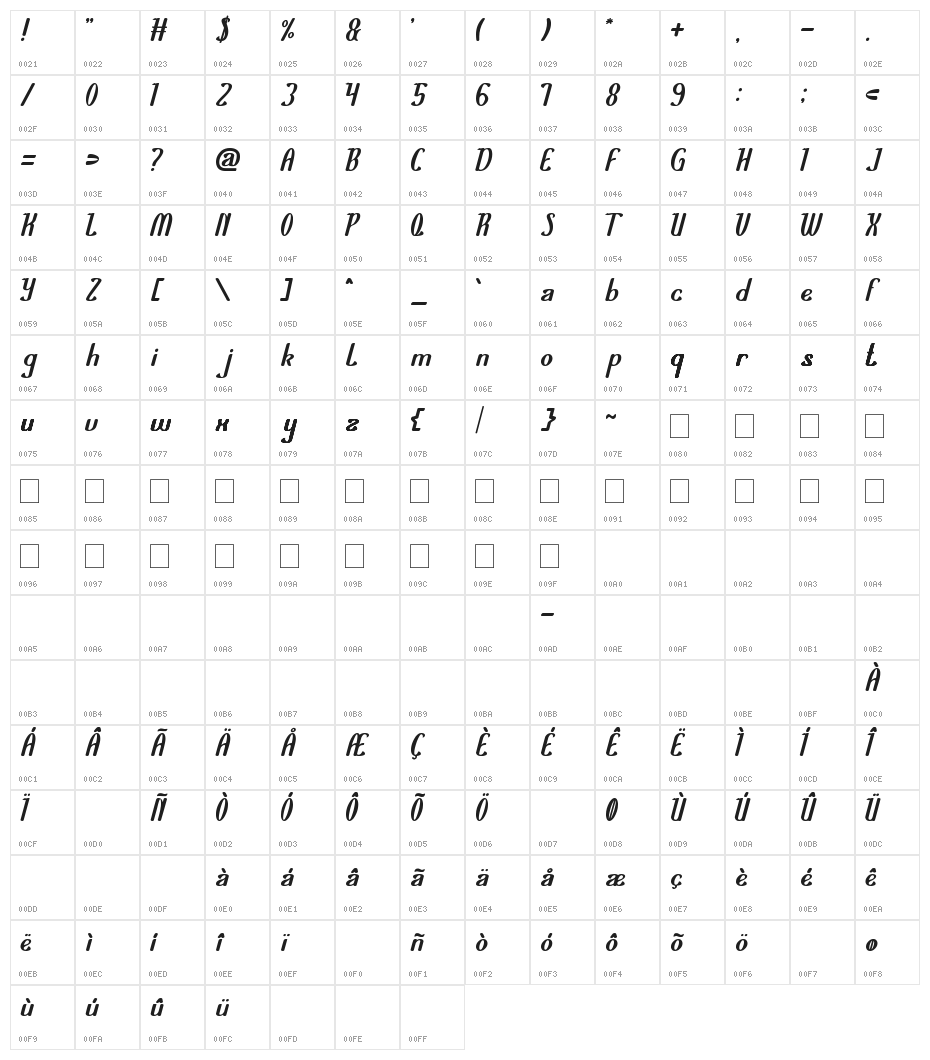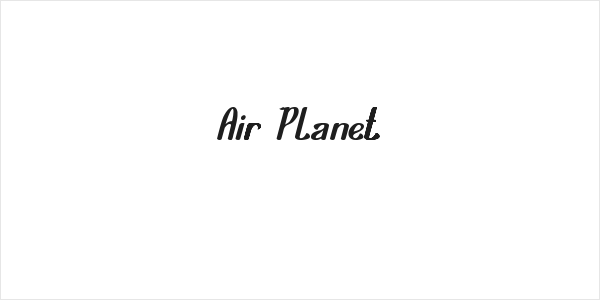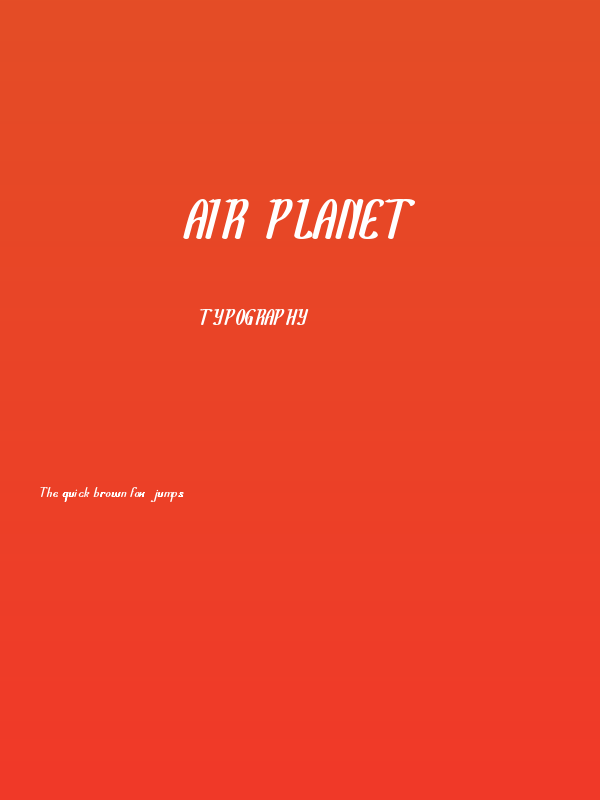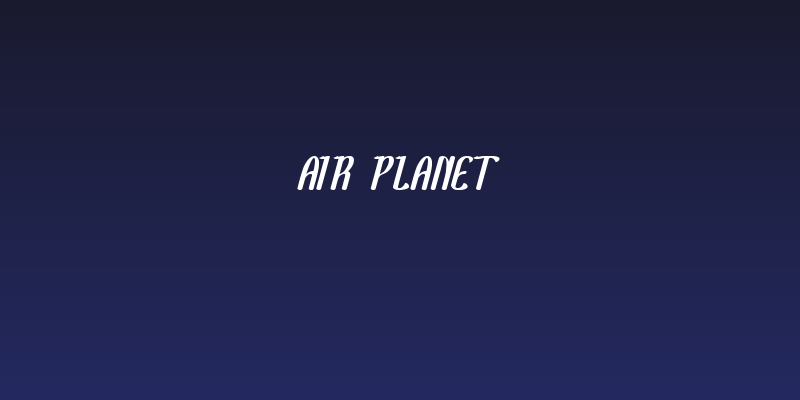
Air Planet Font
Air Planet Description
This font features a dynamic and flowing script style that combines elegance with a touch of modern flair. The characters are slightly slanted, giving a sense of movement and fluidity. The uppercase letters are bold and prominent, while the lowercase letters maintain a consistent rhythm with smooth curves and subtle flourishes. The numerals are designed to match the overall style, ensuring a cohesive look across all text. Special characters are included, maintaining the same stylistic elements, making this font versatile for various uses.